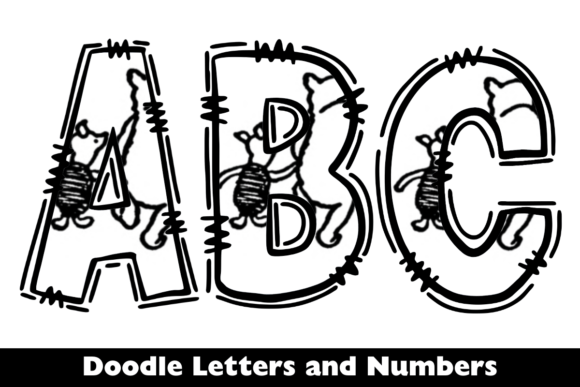
Design isn’t just about fonts and text — sometimes, it’s about bringing a story to life. Winnie the Pooh and Piglet Doodle Letter Font is a charming, hand-drawn letter set that does exactly that.
More than just letters, these doodles bring nostalgia, warmth, and gentle humor into your creative projects — perfect for everything from baby shower invitations to scrapbook pages and children’s book covers.
In this article, we’ll explore what makes this doodle pack special, what’s included, where it works best, and why designers, crafters, and fans of classic illustration love it.
✏️ What is Winnie the Pooh and Piglet Doodle Letter?
Imagine your favorite childhood story turned into playful, illustrated letters.
Winnie the Pooh and Piglet Doodle Letter is a digital alphabet pack inspired by the timeless friendship between Pooh and Piglet. Each uppercase letter and number is thoughtfully decorated with doodles of the characters, making even the simplest word feel magical.
Here’s what makes it unique:
✅ Hand-drawn, nostalgic style inspired by classic Pooh illustrations
✅ Whimsical charm that feels personal and heartfelt
✅ Great for both print and digital designs
It’s not just text — it’s storytelling in every letter.
📦 What’s Included in the Pack
When you download the Winnie the Pooh and Piglet Doodle Letter set, you get:
26 uppercase letters (A–Z): Each decorated with doodles of Pooh, Piglet, honey pots, or whimsical forest details
Numbers 0–9: Perfect for dates, ages, or creative numbers in designs
These are designed to keep the handcrafted charm while being practical to use — a blend of artistry and usability.
✨ Why Designers Love Doodle Letters
Letter doodles like this set do something special that typed fonts rarely do:
They add personality: Each letter feels unique and hand-crafted.
They evoke emotion and nostalgia: Instantly recognizable characters bring childhood memories back.
They are versatile: Use letters as initials, monograms, words, or even decorative elements.
They look great at any size: From small web graphics to large banners.
They’re especially perfect for designs where warmth and approachability matter.
🛠 Where to Use Winnie the Pooh and Piglet Doodle Letter
This doodle alphabet pack is fantastic for:
📸 Scrapbooking & memory albums: Personalize pages with playful letters.
👶 Baby shower invitations & announcements: Soft, charming style for welcoming new arrivals.
🎨 Children’s books & storyboards: Headings, chapter titles, or decorative initials.
🎂 Birthday party decor & banners: Age numbers, name signs, or cake toppers.
📱 Social media graphics: Instagram posts, story highlights, or YouTube thumbnails.
🛍 Merchandise & printables: T-shirts, mugs, tote bags, stickers, and more.
💌 Greeting cards & posters: Perfect for handmade cards or nursery art.
Anywhere you want a playful, timeless, and gentle style, these doodles fit beautifully.
🎨 Design Tips to Make Them Shine
✅ Keep backgrounds simple: Solid pastel colors or watercolor washes make doodles pop.
✅ Mix with handwritten fonts: Pair these letters with a soft handwritten font for supporting text.
✅ Use as initials or monograms: One doodled letter can become a focal point.
✅ Add shadows: Soft drop shadows create a layered, scrapbook effect.
✅ Stick to short words or names: These look best when the design stays playful and uncluttered.
🔠 Fonts & Elements to Pair With
To create a cohesive style, try combining your Winnie the Pooh and Piglet doodles with:
Handwritten script fonts: Like “Pacifico” or “Dancing Script”
Soft serif fonts: Like “Playfair Display” for a storybook vibe
Pastel illustrations or watercolor textures
Forest or honey-themed icons
The doodles do most of the visual storytelling — keep other elements subtle.
The Winnie the Pooh and Piglet Doodle Letter pack isn’t just a collection of letters — it’s a way to bring gentle humor, nostalgia, and storytelling into your designs.
Whether you’re creating nursery art, a scrapbook, party invitations, or digital graphics, these doodles transform ordinary text into something special, heartfelt, and unforgettable.